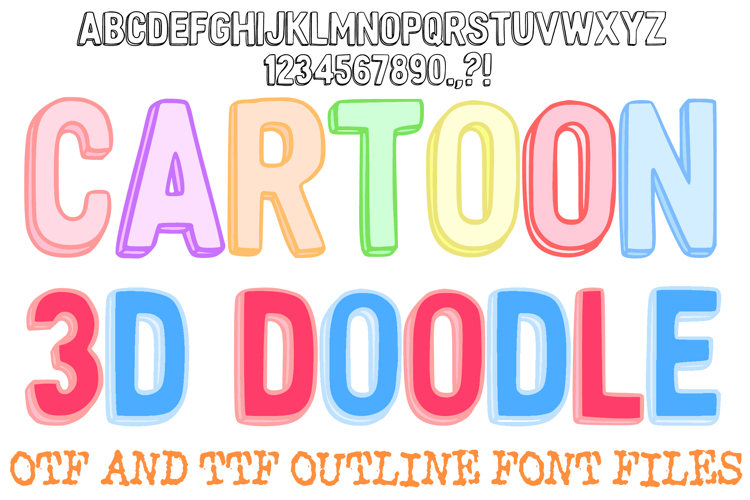
Cartoon 3D Doodle Outline Font Bubble Typography Lettering
Bring your designs to life with the playful energy of the Cartoon 3D Doodle Font! This hand-drawn display alphabet features thick, clean outlines and a subtle offset line that creates a soft, three-dimensional "bubble" effect. It is the perfect choice for teacher resources, children’s branding, personalized stickers, and creative digital scrapbooking.
The font’s friendly, rounded silhouette and high legibility make it an ideal "all-rounder" for any project that needs a touch of whimsy. Whether you are designing classroom bulletin boards, fun birthday party invitations, or eye-catching social media graphics, the Cartoon 3D Doodle Font provides a professional yet handcrafted look that pops off the page.
Why Your Designs Will Stand Out:
Clean 3D Outline: Every letter features a secondary internal line that mimics a 3D shadow for instant depth.
Friendly Bubble Style: The soft, rounded edges create an approachable and cheerful aesthetic.
Hand-Drawn Authenticity: Captures the charm of a sketchbook doodle while maintaining crisp, professional lines.